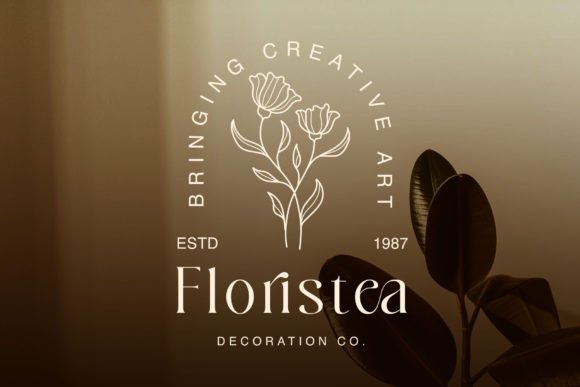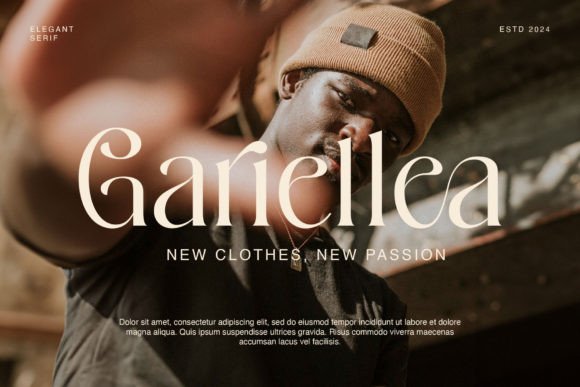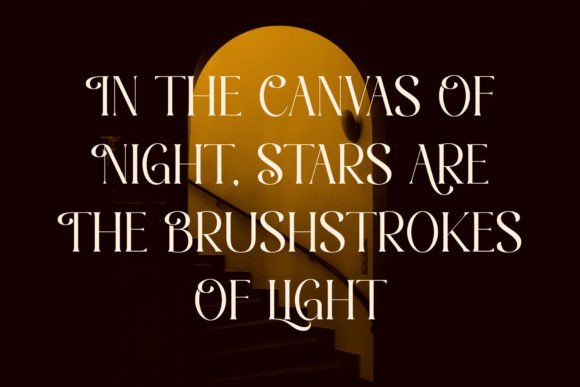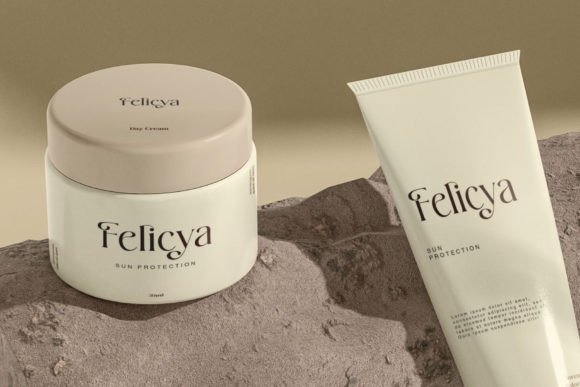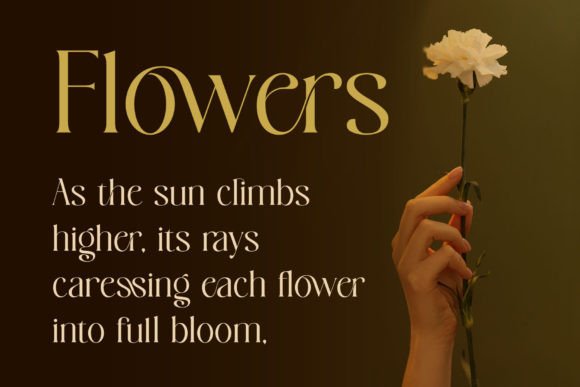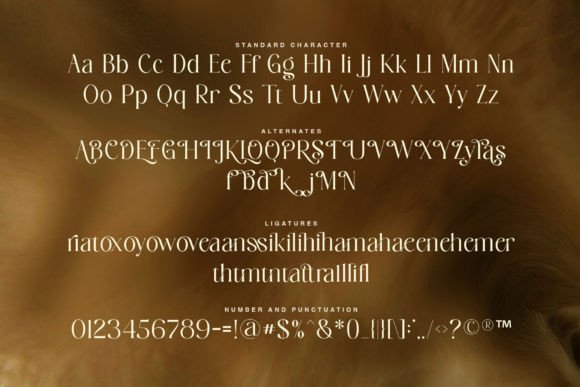
Unleash the Timeless Elegance of Bowtaris Font
As a designer, have you ever found yourself rummaging through old books and dusty archives, searching for the perfect font to transport your audience to a bygone era? I know I have! There’s something magical about uncovering a vintage typeface that exudes classic charm and sophistication.
Enter the Bowtaris Font, a beautiful vintage serif font that embodies the essence of traditional typography. With its elegant curves and refined details, Bowtaris Font is the perfect addition to any design project seeking to evoke a sense of nostalgia and timelessness. Whether you’re designing a luxury brand, a vintage-inspired poster, or a classic novel, Bowtaris Font is an invaluable resource that will add a touch of sophistication to your work.
As a valuable tool for designers, Bowtaris Font offers unparalleled versatility and flexibility, allowing you to create stunning typography that stands the test of time.
Bowtaris Font Key Features
- Unique Characteristics: This font features a unique blend of modern and classic elements, with a distinctive bow-like curve and a bold, yet elegant feel.
- Font Style: Bowtaris Font is available in regular and bold weights, providing flexibility for various design and typography needs.
Bowtaris Font Review
As a designer, I was excited to dive into the Bowtaris Font and see what it has to offer. Here’s my honest take on this font.
- The unique, hand-drawn feel of the font adds a touch of personality to any design project.
- The bold and playful variations of the font make it perfect for headings and titles.
- The font’s versatility allows it to work well in a variety of contexts, from digital design to print materials.
- The font’s irregularities can sometimes make it difficult to read, particularly at smaller font sizes.
- The lack of a clear, consistent spacing system can make it challenging to achieve uniform typography.
- The font may not be the best choice for body text or large blocks of text, where readability is a top priority.
Overall, I think the Bowtaris Font is a great addition to any designer’s toolkit. While it may have some limitations, its unique personality and versatility make it a great choice for projects where a bit of flair is needed. With some careful consideration and attention to typography, the Bowtaris Font can be a powerful tool for adding visual interest to your designs.
Tips for Getting the Most Out of Bowtaris Font
Here are some tips for getting the most out of Bowtaris Font:
- Use Bowtaris Font for titles and headings to add a touch of elegance to your design.
- Combine Bowtaris Font with other fonts to create a unique and visually appealing typography.
- Experiment with different font sizes and styles to find the perfect balance for your design.
Bowtaris Font is ideal for:
- Business cards and branding materials.
- Editorial and publishing designs.
Alternatives to Bowtaris Font
Montserrat Font is a sans-serif typeface designed by Julieta Ulanovsky. It is a geometric sans-serif font with a strong, modern feel. Montserrat Font is ideal for use in digital interfaces, logos, and body text.
Compared to Bowtaris Font, Montserrat Font has a more geometric and modern look. While Bowtaris Font has a more vintage feel, Montserrat Font is better suited for modern and sleek designs.
Great Vibes Font is a script typeface designed by Pizzley. It is a beautiful, elegant font with a handwritten feel. Great Vibes Font is perfect for use in wedding invitations, quotes, and other creative projects.